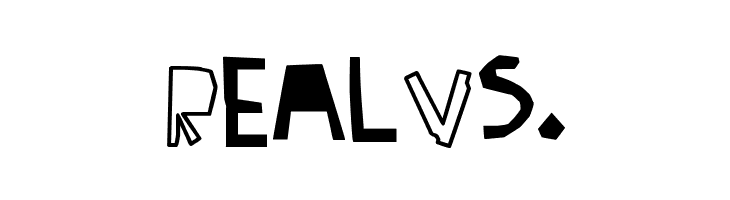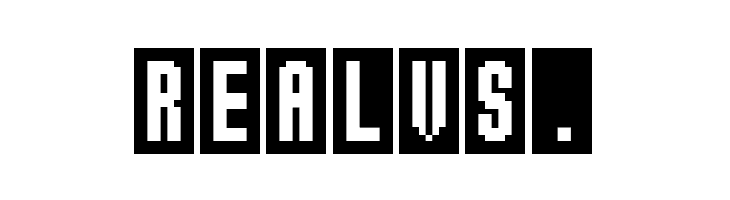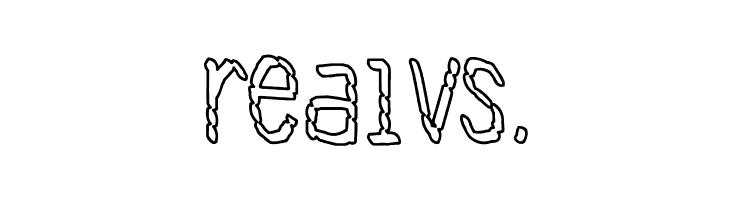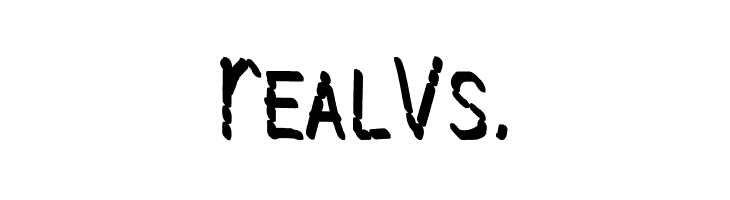
A bold, hand-drawn font with a playful and artistic style.
A bold, hand-drawn font with an organic and playful style.
A modern sans-serif font with clean lines and excellent readability.
A high-contrast serif font with elegant, refined details.
A classic Didone style font with high contrast and elegant serifs.
A clean, modern typeface with balanced proportions and excellent readability.
A robust slab serif font with thick, block-like serifs and consistent stroke width.
A robust slab serif font with prominent squared serifs and moderate contrast.
A refined and elegant cursive script font with flowing, connected letters.
Elegant script font with fluid, continuous strokes and a modern twist.
A playful, rounded font with smooth curves and a friendly appearance.
A bold, angular font with a futuristic and edgy design.
A bold, pixelated font with a retro arcade game aesthetic.
A bold, high-contrast script font with elegant, flowing letterforms.
A futuristic, geometric font with clean lines and a modern aesthetic.
A sleek, futuristic, and condensed font with geometric precision.
A sleek, modern, condensed italic font with uniform stroke thickness.
A modern, geometric, extra-condensed font with a futuristic style.
A sleek, italicized, extra-condensed font with a modern and streamlined appearance.
A bold, graffiti-inspired font with dynamic, angular characters.
A bold, graffiti-inspired font with sharp, angular lines and an urban aesthetic.
A sophisticated, elegant handwritten font with fluid, graceful strokes.
A bold, futuristic font with angular, geometric shapes.
A bold, italic, and futuristic font with angular, geometric characters.
A bold, futuristic font with angular, geometric characters.
A bold, italic, and futuristic font with angular, geometric characters.
A bold, brush-style font with a textured, hand-painted appearance.